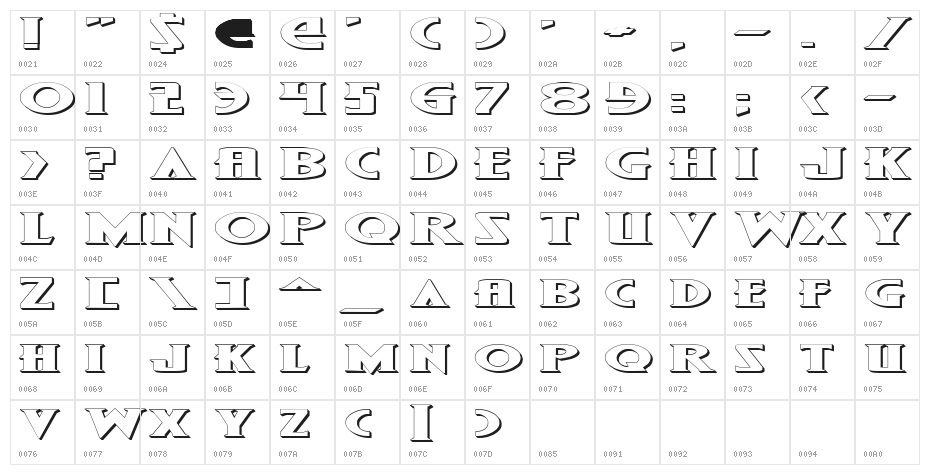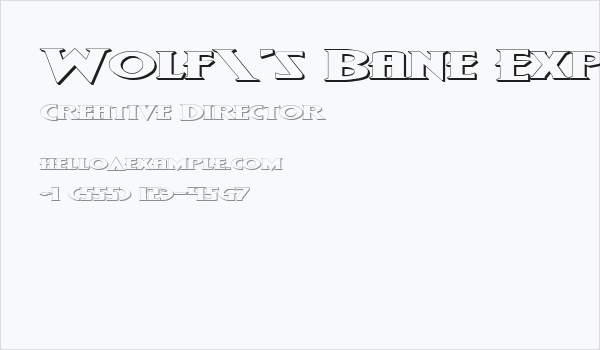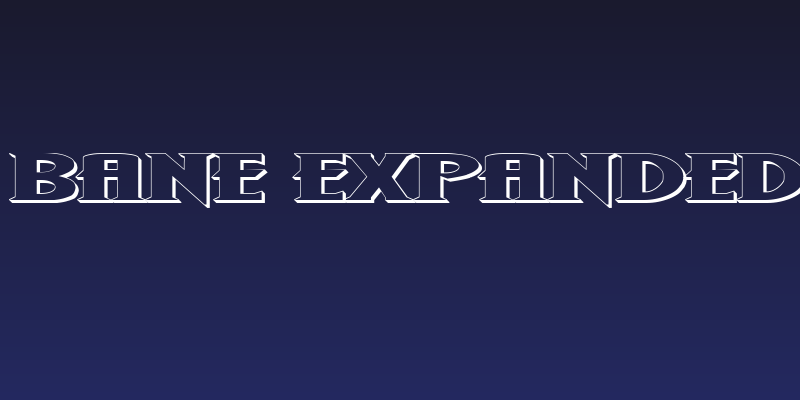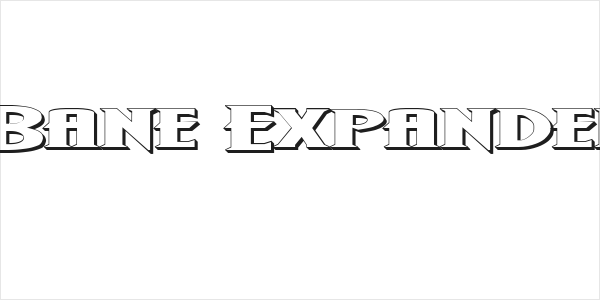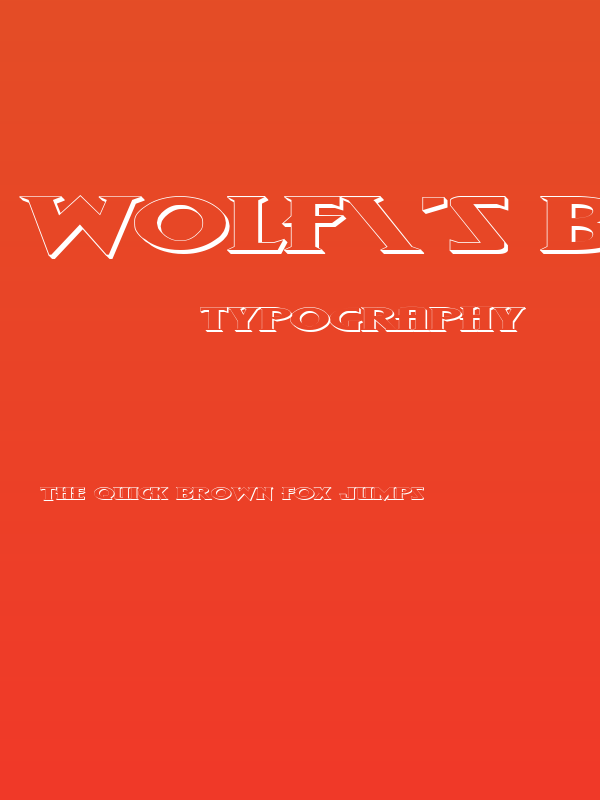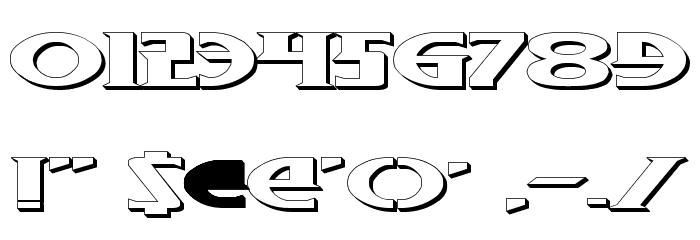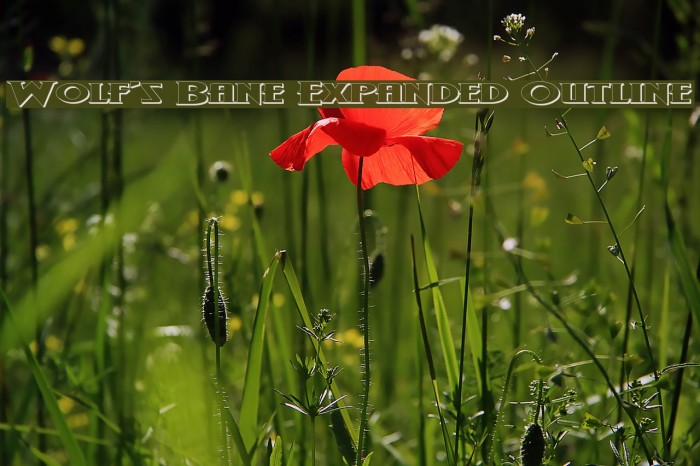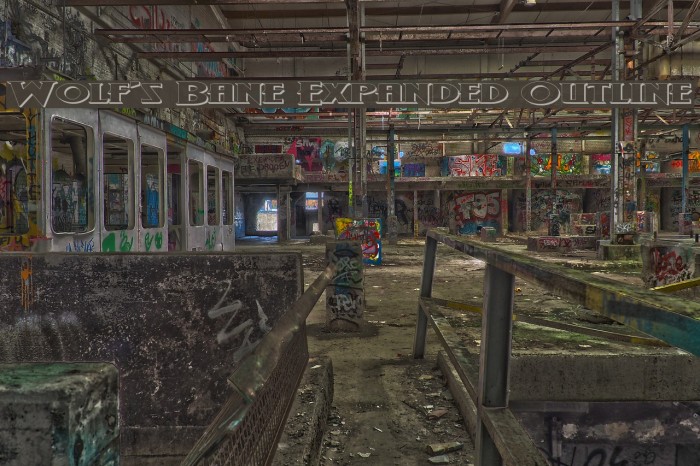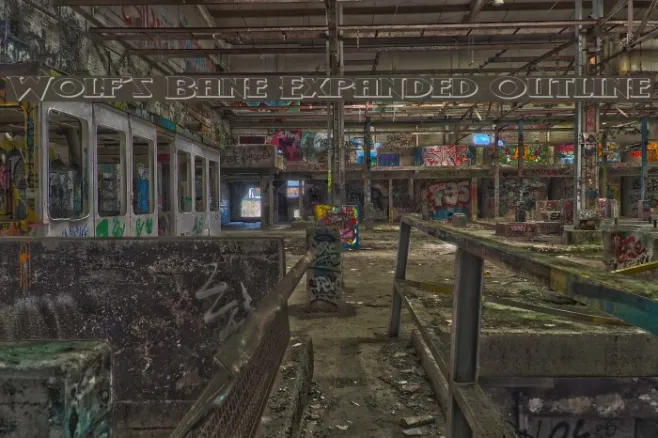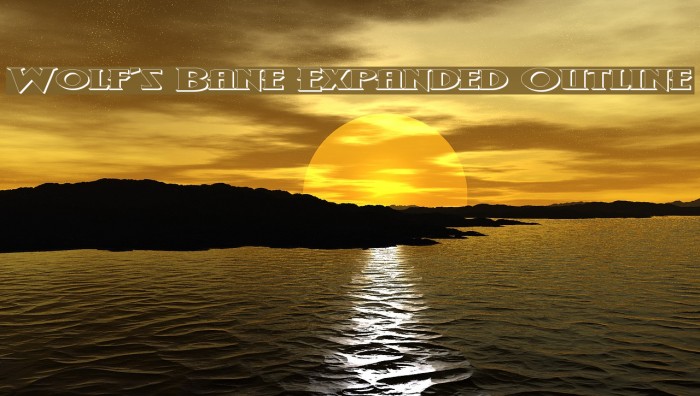
Wolf's Bane Expanded Outline Font
Wolf's Bane Expanded Outline Description
This font features a bold, outlined style with a distinct geometric flair. The characters are expanded, giving them a wide appearance, and the outlines add a layer of depth and dimension. The angular and sharp edges contribute to a modern and edgy aesthetic. The uppercase and lowercase letters maintain a consistent style, with the numbers and special characters following suit. The overall look is both striking and versatile, suitable for making a strong visual impact.
| Proposed Projects | Ideal for headlines, posters, branding, and any design project that requires a bold and impactful typeface. |